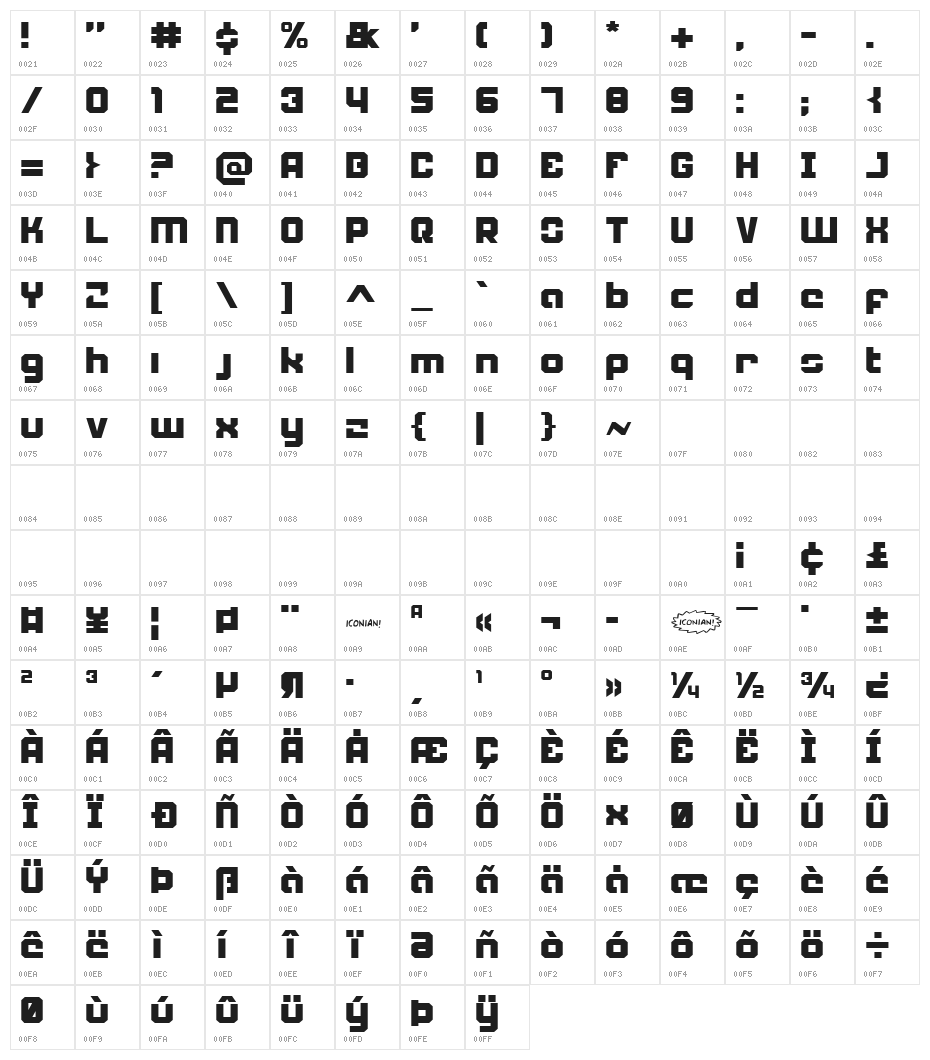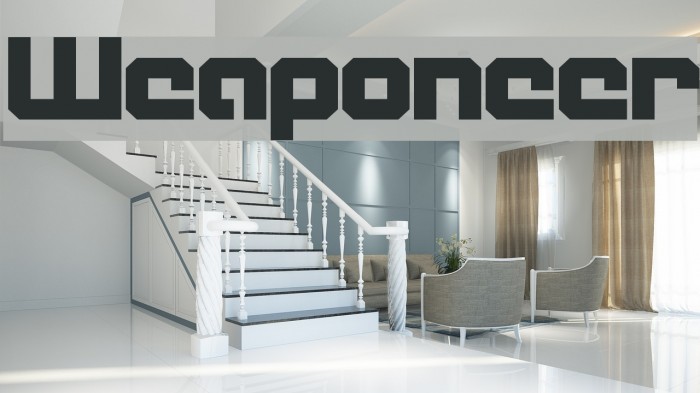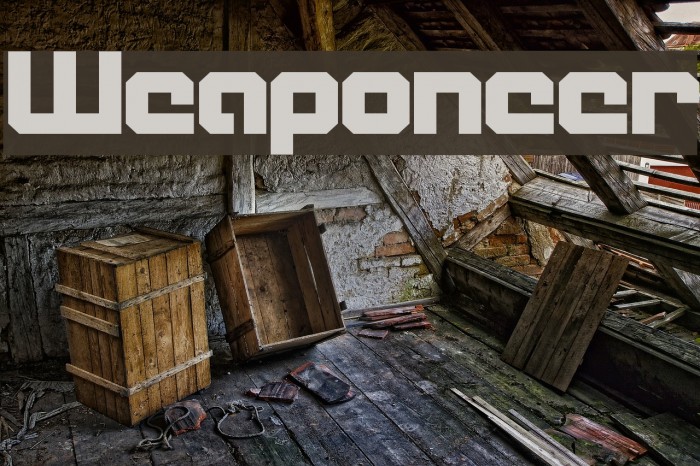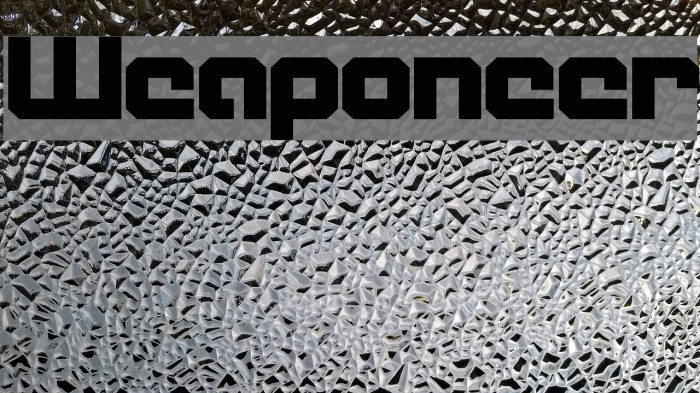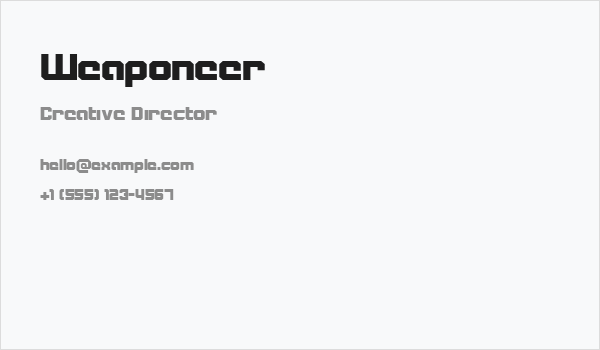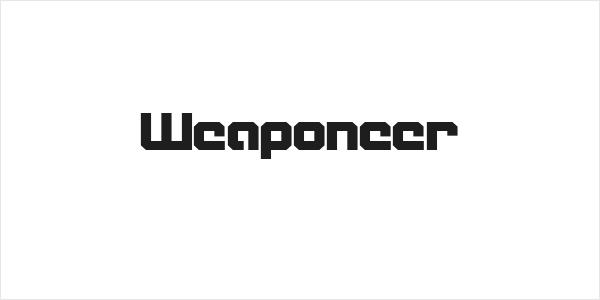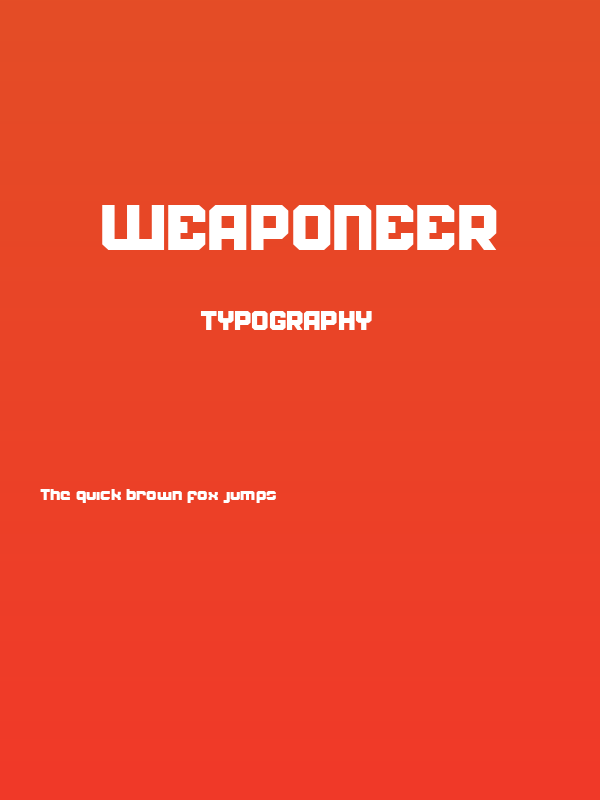
Weaponeer Font
Weaponeer Description
This font features a bold, geometric design with a strong, angular appearance. Each character is constructed with thick, blocky lines, giving it a robust and industrial feel. The uppercase and lowercase letters maintain a consistent style, with sharp edges and a uniform height that enhances readability. The numerals and special characters follow the same design principles, ensuring a cohesive look across all elements. This font's distinctive style makes it suitable for projects that require a modern and impactful visual presence.
| Proposed Projects | Ideal for video game titles, tech branding, posters, and signage. |